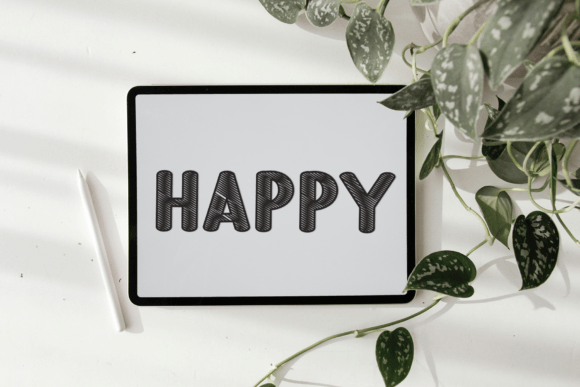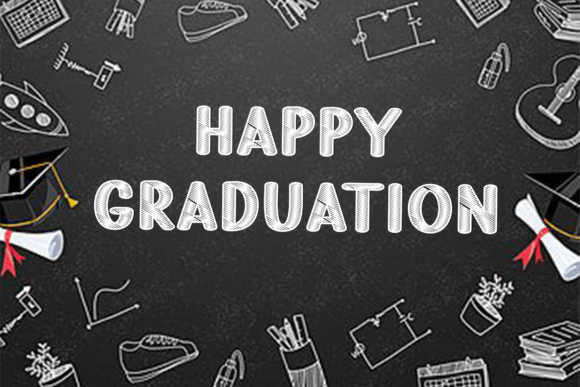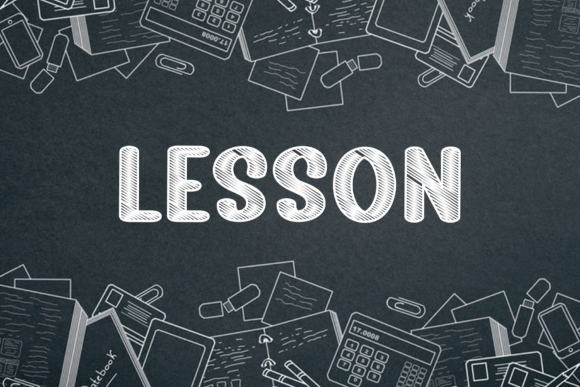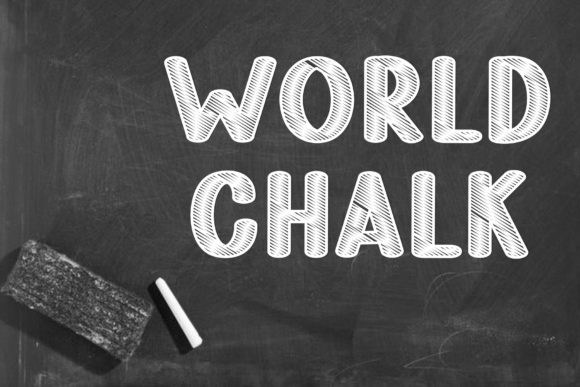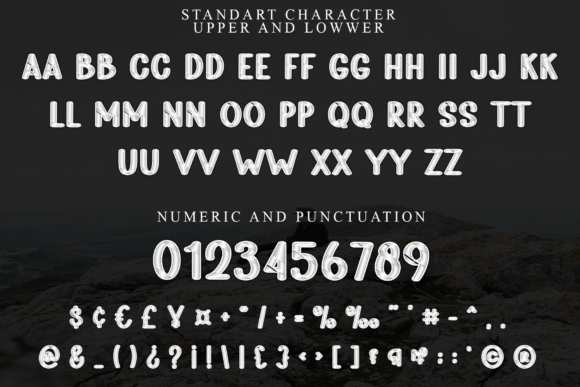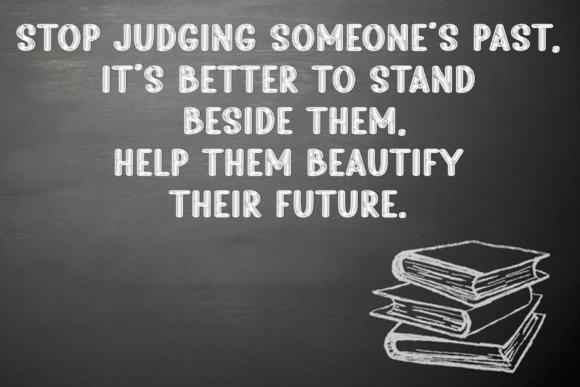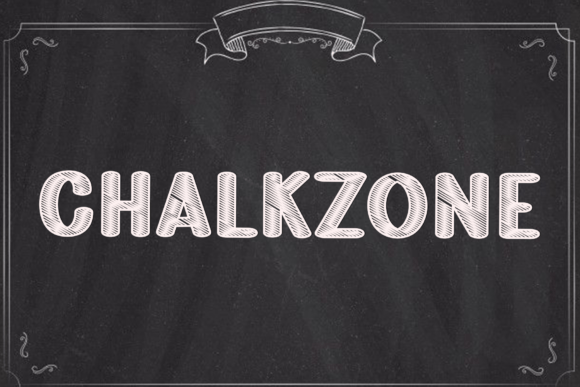
That’s where the Chalkzone Font comes in – a beautiful and eye-catching typeface designed to evoke the soft, unique touch of chalk on paper. With its distinctive strokes and versatile character, this font is perfect for designers looking to add a touch of whimsy and charm to their projects.
Whether you’re working on a design project, crafting a handmade card, or simply looking to add some personality to your digital creations, the Chalkzone Font is a valuable addition to your toolkit.
Key Features of Chalkzone Font
- Font Family: Chalkzone is a unique, hand-drawn font designed to resemble chalkboard writing. It comes in a variety of styles, including regular, bold, and italic.
- Character Set: The font includes a wide range of characters, including uppercase and lowercase letters, numbers, punctuation marks, and special characters.
- Unique Characteristics: Chalkzone features a distinctive, hand-drawn look with subtle imperfections and texture, giving it a charming, vintage feel.
Chalkzone Font Review
Overall, I think Chalkzone Font is a unique and interesting choice for designers looking to add some personality to their projects. ✨ Its playful, hand-drawn aesthetic makes it perfect for creative or educational content. The font is highly customizable, with a wide range of weights and styles available, allowing designers to tailor it to their specific needs.
One of the standout features of Chalkzone Font is its legibility, even at small font sizes. This makes it a great choice for body text or headings in digital projects. Additionally, the font is highly versatile and can be used in a variety of contexts, from children’s educational materials to marketing campaigns.
- Playful, hand-drawn aesthetic
- Highly customizable with a wide range of weights and styles
- Legible even at small font sizes
- Highly versatile and can be used in a variety of contexts
- ⚠️ May not be suitable for formal or professional applications due to its playful nature
- ⚠️ Can be difficult to read at very large font sizes
Overall, I think Chalkzone Font is a great choice for designers who want to add some personality to their projects. While it may have some limitations, its unique aesthetic and high level of customization make it a valuable addition to any designer’s toolkit.
Tips for Getting the Most Out of Chalkzone Font
For the best results, use Chalkzone font in combination with bright, playful colors and whimsical graphics. You can also use the font to add a touch of nostalgia to your design.
Chalkzone font is ideal for:
- Children’s party invitations
- Summer camps and kids’ programs
- Playground and outdoor recreation branding
- Whimsical wedding invitations
Q: What is the character set supported by Chalkzone Font?
Chalkzone Font supports a wide range of characters, including Latin, Cyrillic, and Greek alphabets, as well as various symbols and punctuation marks. The font also includes support for Unicode characters, allowing for a vast range of languages and scripts to be displayed accurately. However, it’s essential to check the specific character set requirements for your design